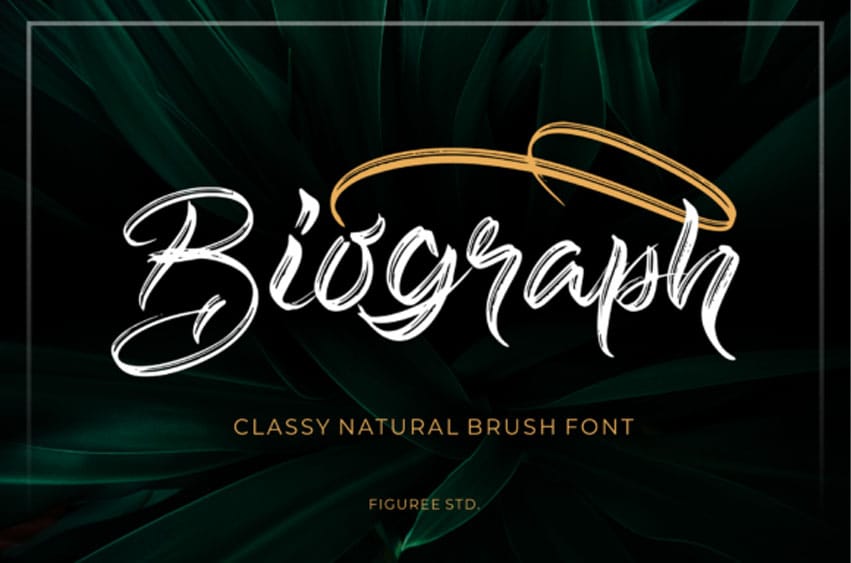
Biograph Font is a casual brush-style script font.
It is ideal for adding an adventurous and authentic feel to your next design idea!
Biograph Font is a casual brush-style script font.
It is ideal for adding an adventurous and authentic feel to your next design idea!